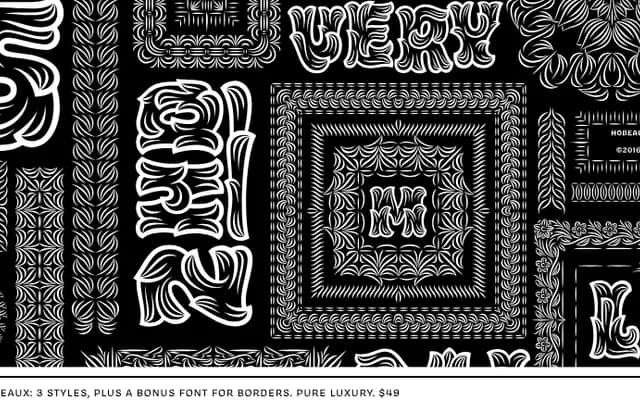
Hobeaux Rococeaux
An ornate all-caps display typeface by OH no Type, rooted in Paul Carlyle's Carlyle Roccoco, with layering, border and small companion styles built for short settings at large sizes.
Derived from Paul Carlyle's intricately ornate Carlyle Roccoco, originally designed for Photolettering in the 1970s, this family packages foreground, background, border and compact Sherman styles into a single chromatic system. Individual glyphs took between one and three hours to draw, and the Borders font comes with a Drawbot script for generating circular and repeating ornamental patterns. Suited to packaging, signage and short-run display work where maximum decorative impact is the point.
A highly ornate all-caps display typeface derived from Paul Carlyle's Carlyle Roccoco, intended exclusively for large-size settings with decorative layering and border elements. Its intricate linework and lack of lowercase firmly place it in the ornamental display category.